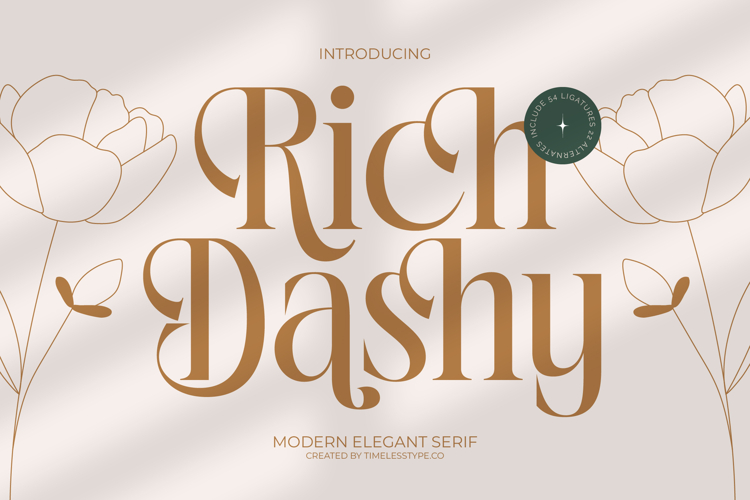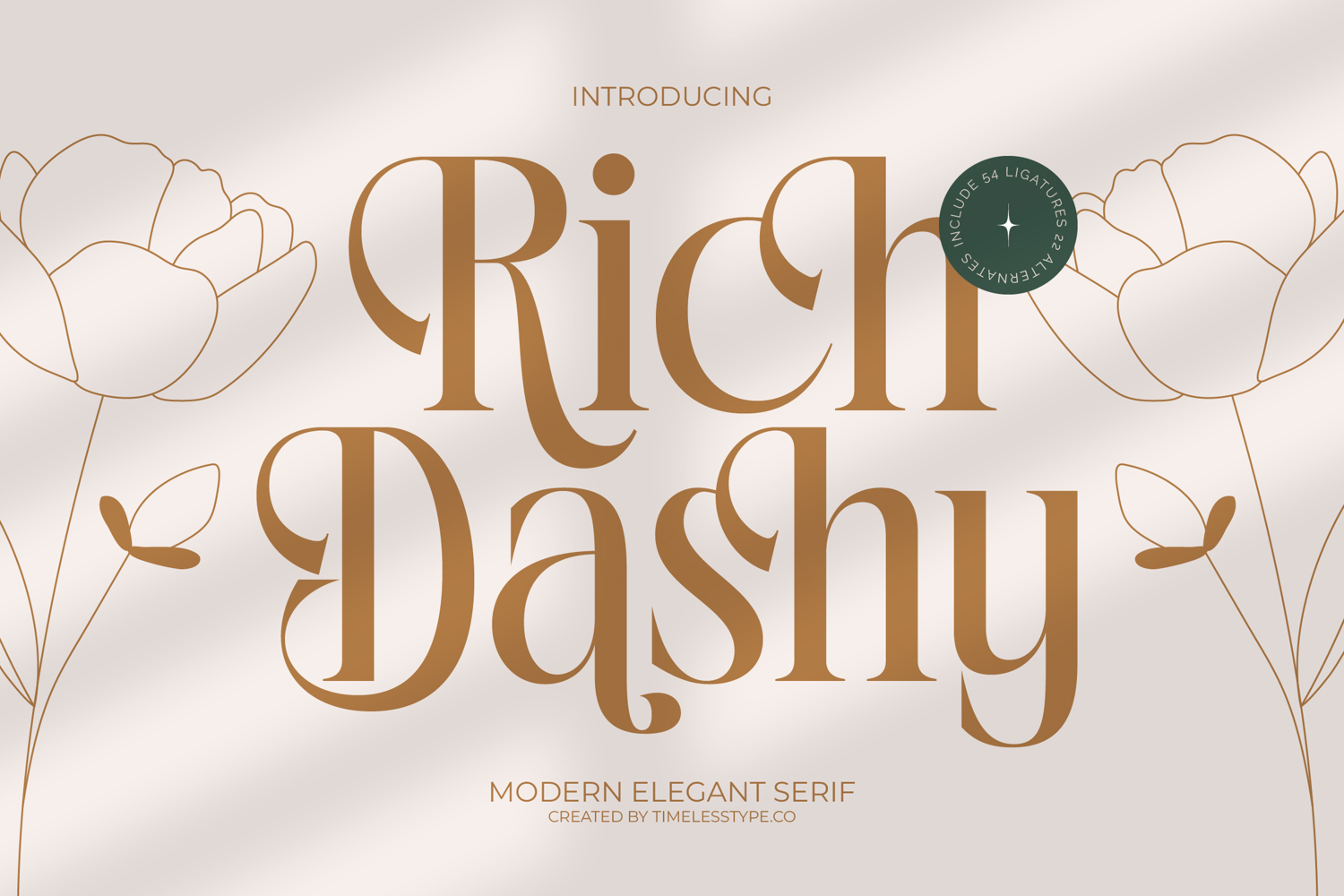
Rich Dashy - Modern Elegant Serif Font
Elevate your designs to a realm of unparalleled sophistication with Rich Dashy - Modern Elegant Serif Font. This exquisite typeface masterfully blends classic serif charm with a distinctly contemporary aesthetic, featuring high-contrast strokes and graceful curves. Its refined letterforms exude a quiet confidence and timeless beauty, ensuring your visual communications always convey a sense of premium quality and discerning taste.
Unlock boundless creative possibilities with the intricate design details of Rich Dashy - Modern Elegant Serif Font. Boasting an impressive collection of 54 ligatures and 22 alternates, this font offers exceptional typographic versatility to craft truly unique headlines and logotypes. It is perfect for luxury branding, upscale packaging, editorial design, high-end invitations, and any project demanding an elegant serif that commands attention.